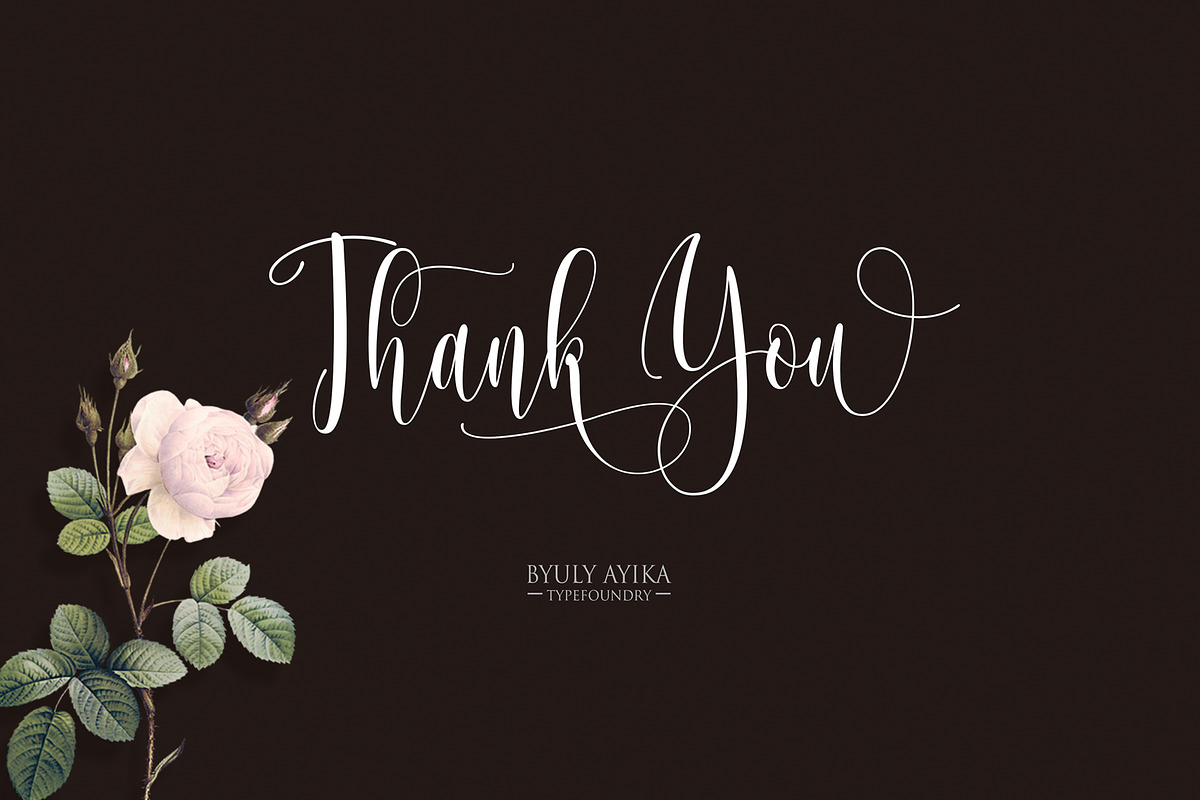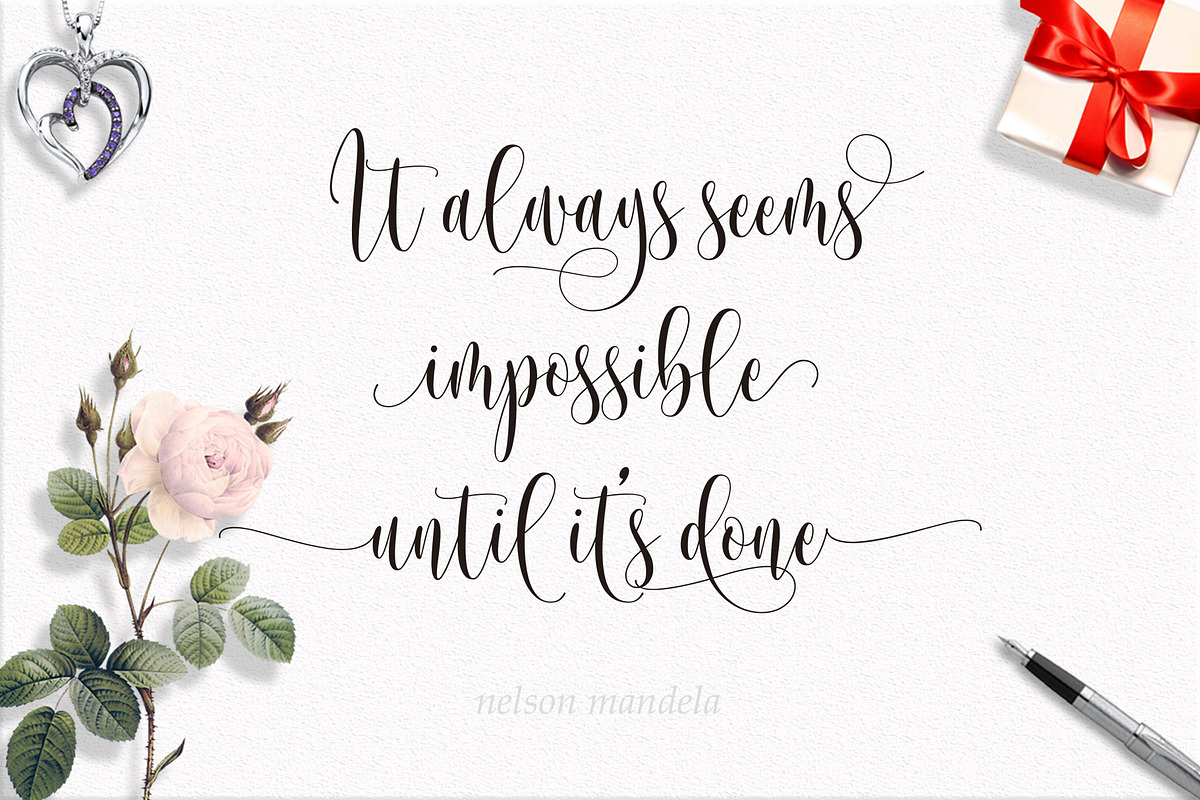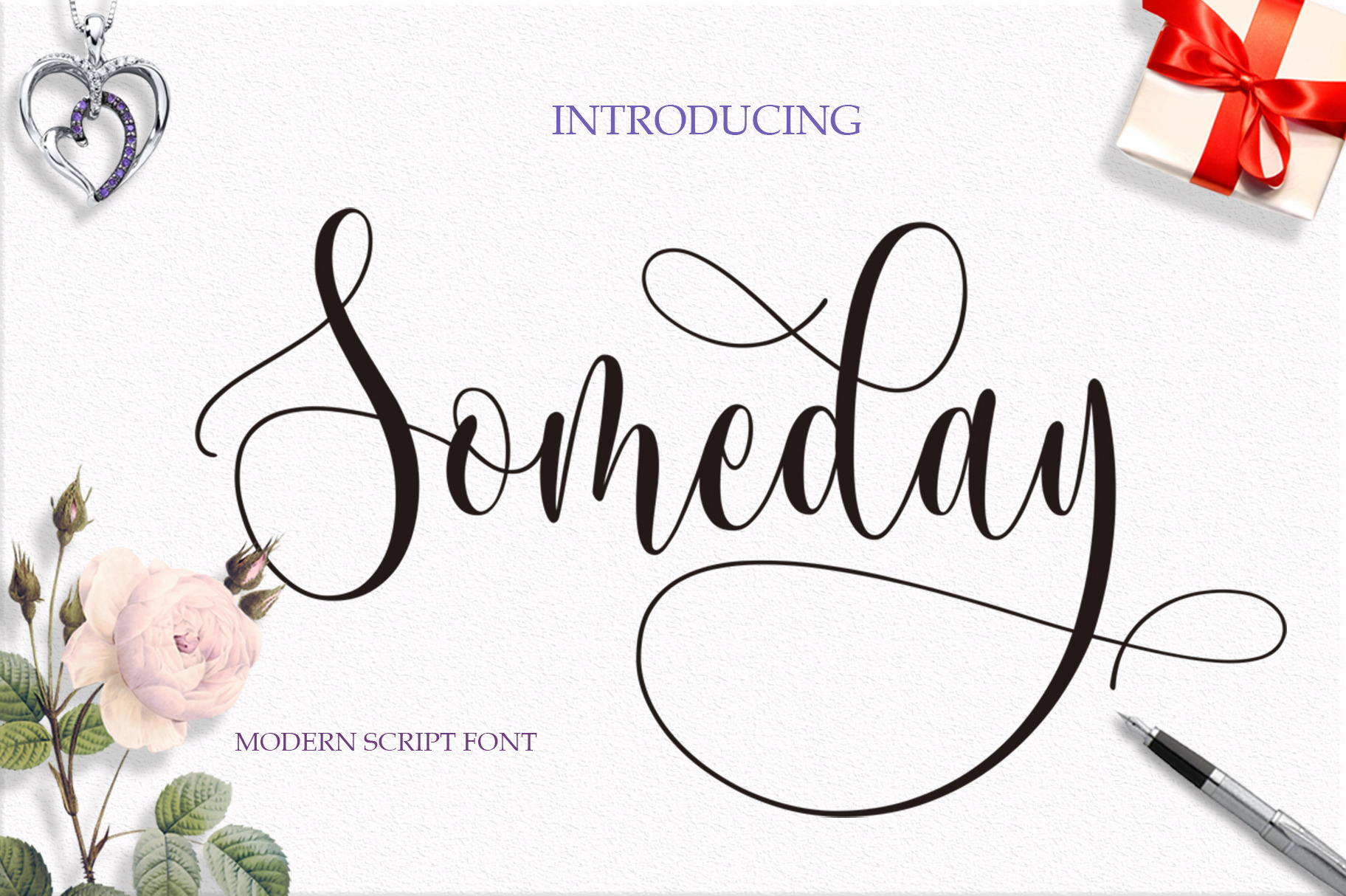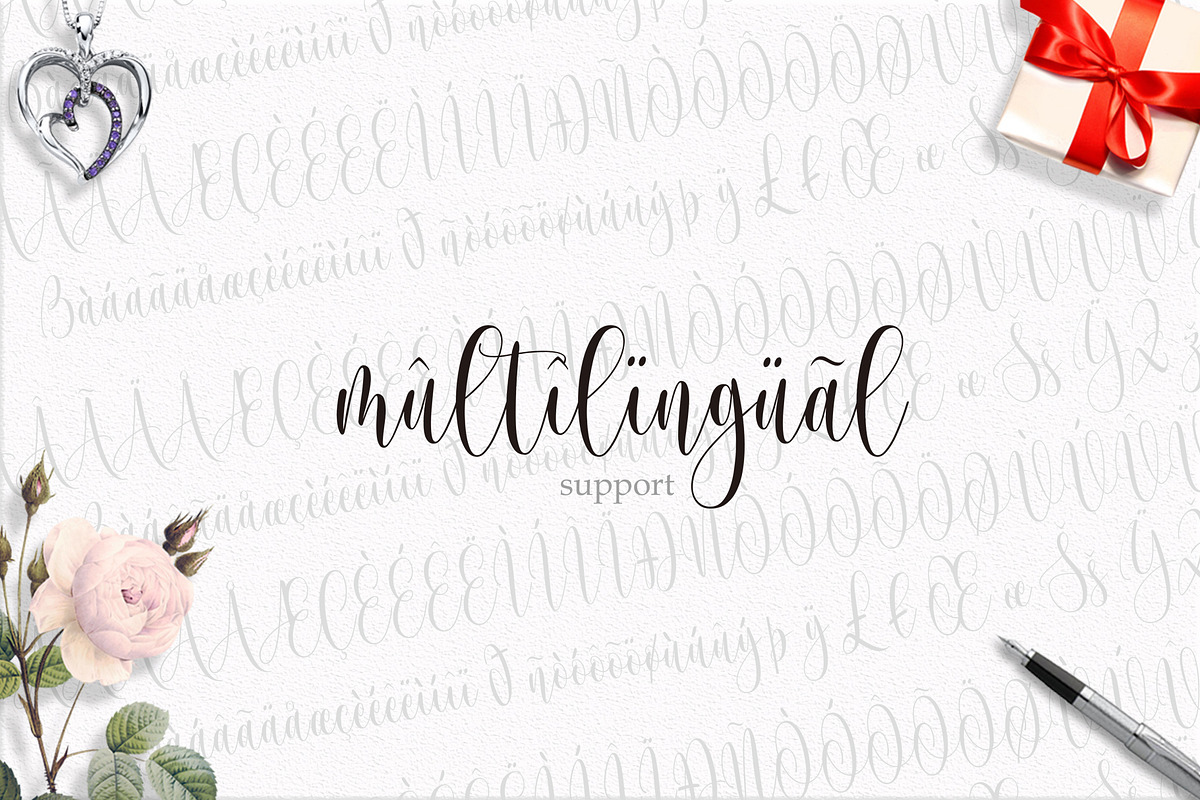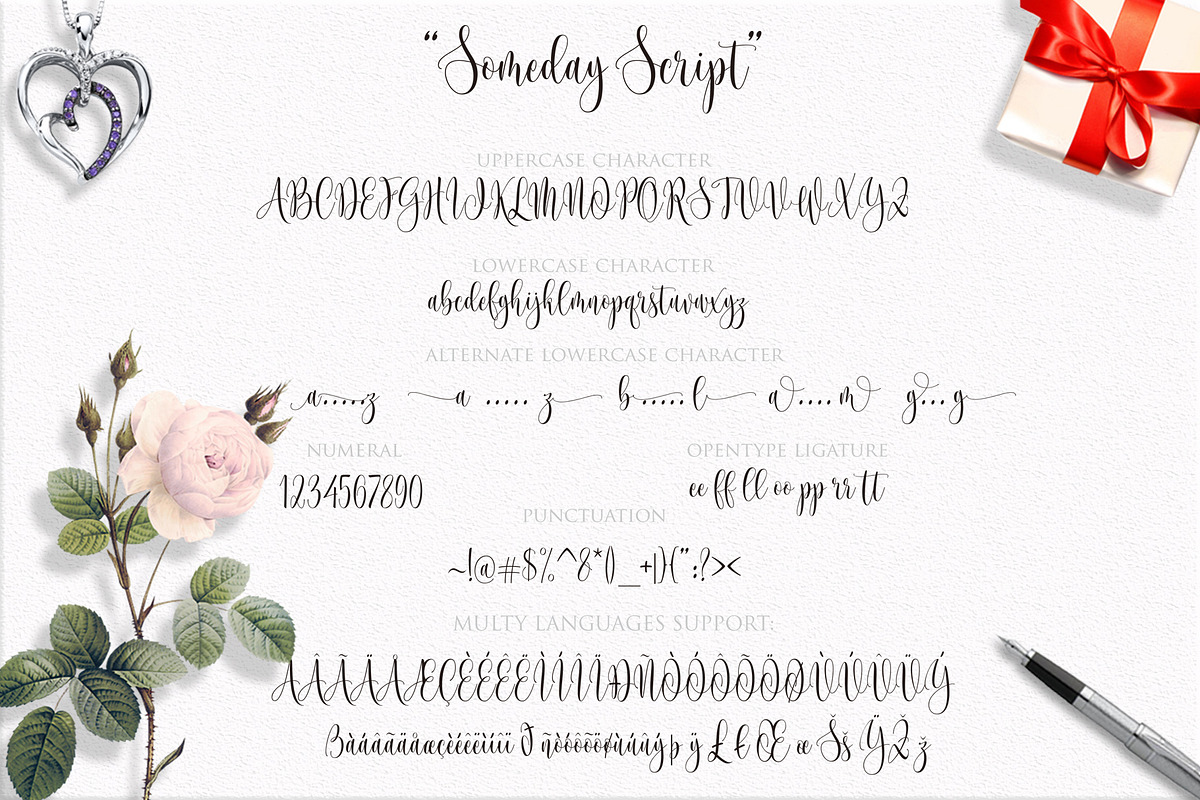
Someday Script Font
"Fonts with charming softness and glyps"
This is perfect for branding, wedding invitations and cards.
Someday Script Font includes a complete set of upper and lower case letters, numbers, various punctuation marks and ligature. All lowercase letters include beginning and ending swash.
Someday Script Font has given PUA UNICODE (specially coded fonts), with tons of alternate characters. The pack can be accessed in full by any crafter or designer, without the requirement for extra design software, COMPATIBLE WITH SILHOUETTE & CRICUT DESIGN SPACE